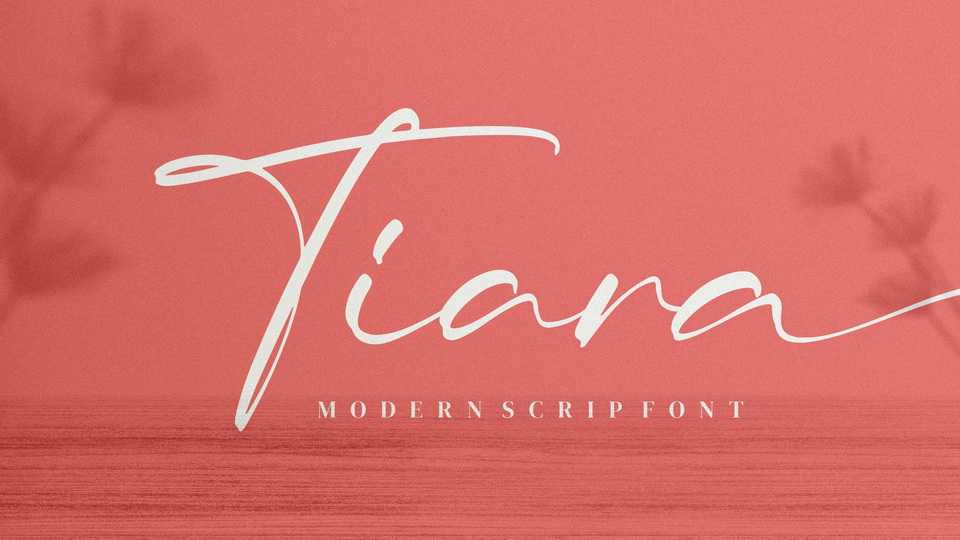
Download Tiara font, a modern calligraphy script typeface with a natural appearance. Tiara font is ideal for logos, branding projects, homeware designs and pretty much any other luxury projects that needs a premium signature taste.
Designer: Integritype Studio